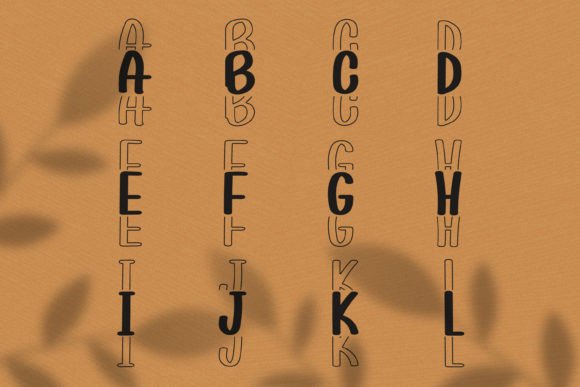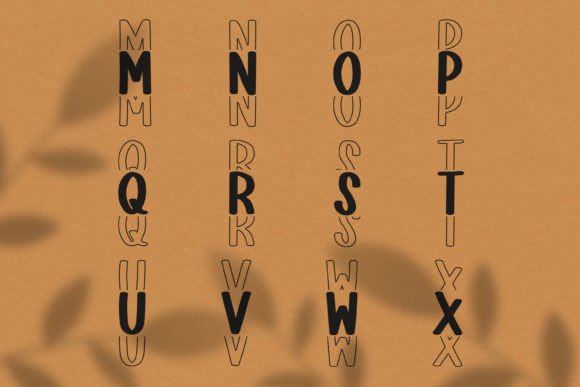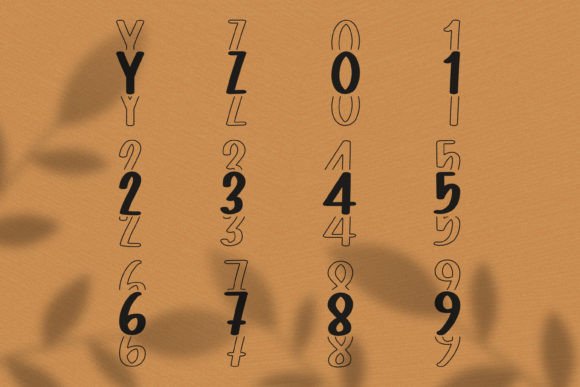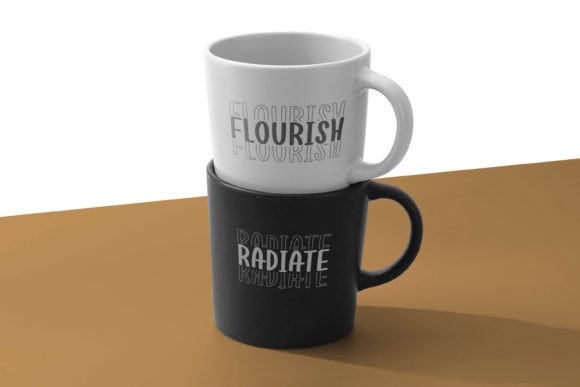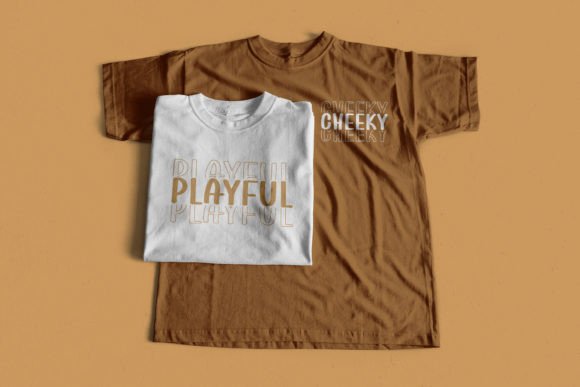
Introduction to Infilayer Font
Have you ever stared at a blank canvas, overwhelmed by the endless possibilities of a creative project? The cursor blinks, taunting you to start, but your mind is a jumble of ideas and uncertainty. It’s moments like these that a little spark of inspiration can make all the difference. And what better way to ignite that spark than with a beautiful, unique font?
Meet the Infilayer Font, a stunning addition to any design project. Its sleek, elegant lines and subtle nuances make it the perfect choice for designers looking to add a touch of sophistication to their creations. Whether you’re working on a custom design, DIY craft, or simply need a high-quality font for your next project, the Infilayer Font is an invaluable resource.
Key Features of Infilayer Font
- High-quality, professional font suitable for creative projects and designs.
- Features a transparent background, making it easy to overlay on images or other design elements.
- Includes a range of glyphs and characters, ideal for use in logos, typography, and other design applications.
- Designed with a high resolution (up to 1024×1024 pixels), ensuring crisp and clear text output.
- Perfect for designers and artists looking for a unique, high-quality design resource.
Honest Review: Infilayer Font
I recently stumbled upon the Infilayer Font while searching for a unique design resource for a creative project. I was impressed by its high quality and versatility, making it a great addition to my design arsenal. One of the standout features of this font is its transparent background, which allows for seamless integration with any design element.
- ✨ Customizable: The Infilayer Font comes with a range of styles and weights, making it easy to adapt to any creative project.
- ✨ Versatile: This font is suitable for a variety of design applications, from digital to print media.
However, there are a few limitations to consider. The font may not be suitable for large-scale text or headings, as it can become difficult to read at larger sizes.
- ⚠️ Limited scalability: The Infilayer Font may not be the best choice for large-scale text or headings.
Infilayer Font
Tips for Getting the Most Out of Infilayer Font
Experiment with different font sizes, colors, and transparency levels to achieve the desired effect. Combine the Infilayer Font with other design elements to create visually appealing graphics.
The Infilayer Font is suitable for various design projects, including social media graphics, presentations, and digital signage. Its transparent background makes it easy to overlay text or graphics on any background image or color.